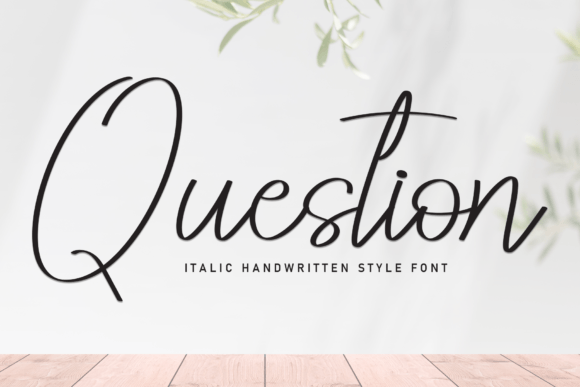
Prepare to be mesmerized by Question Font, a captivating script font family that embodies the essence of handwritten elegance. Created by the visionary Roronoa Zoro.S.P.D, this font is a masterpiece that blends timeless calligraphy with a modern, refreshing twist. Let Question Font ignite your creativity and elevate your designs to unprecedented heights.
Journey into a world of sophistication and flair with Question Font. Its meticulously crafted characters exude a timeless charm, reminiscent of handwritten letters penned with care and passion. This font is not just a collection of letters; it's an art form that breathes life into your words. Whether you're a seasoned designer or just starting, Question Font will effortlessly elevate your projects with its effortless grace and charm.
With Question Font as your creative companion, your designs will break free from the ordinary and embrace the extraordinary. Its versatility knows no bounds, making it the perfect choice for a wide range of projects. From heartfelt wedding invitations to captivating social media posts, from eye-catching logos to stunning branding materials, Question Font adapts seamlessly to your vision and brings it to life with unparalleled beauty.
Don't settle for ordinary fonts that fade into the background. Embrace the allure of Question Font and watch your designs transform into works of art. Let its intricate swirls and elegant curves capture the attention of your audience, leaving a lasting impression that lingers in their minds. Question Font is more than just a font; it's an experience, an invitation to let your creativity soar and make a statement that resonates.